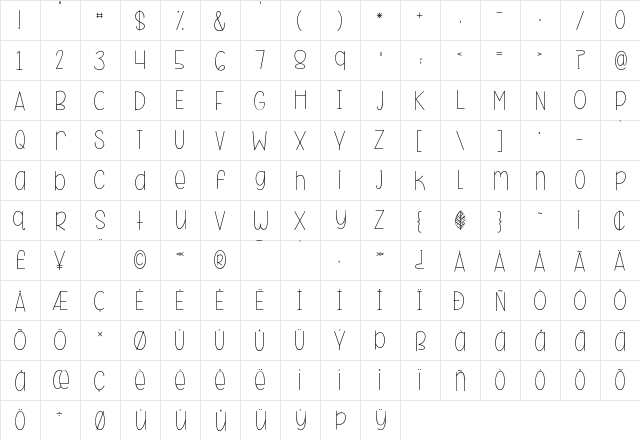
KG Beneath Your Beautiful Regular
| Foundry | Kimberly Geswein |
| Designer | Kimberly Geswein |
Design Context for KG Beneath Your Beautiful Typeface
KG Beneath Your Beautiful offers clean, dependable letterforms without strong stylistic allegiance, making it a practical choice for designers who need flexibility.